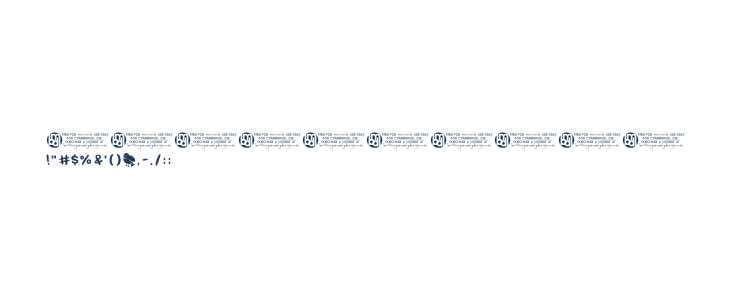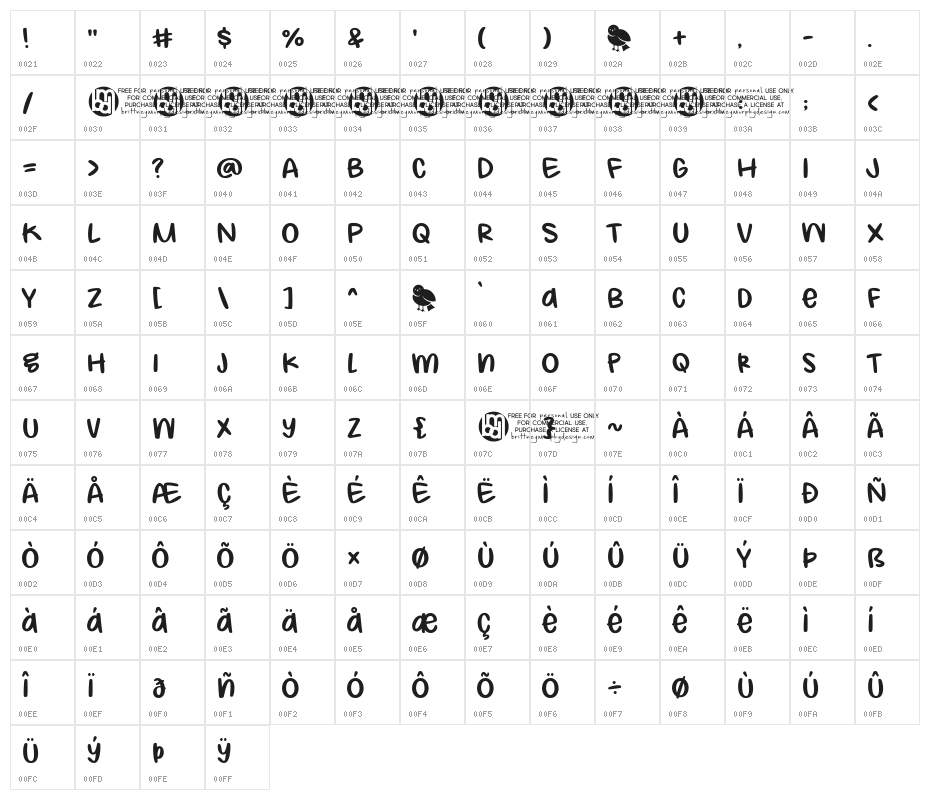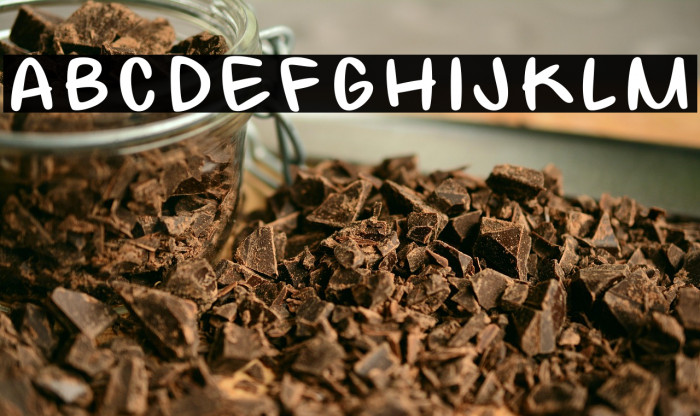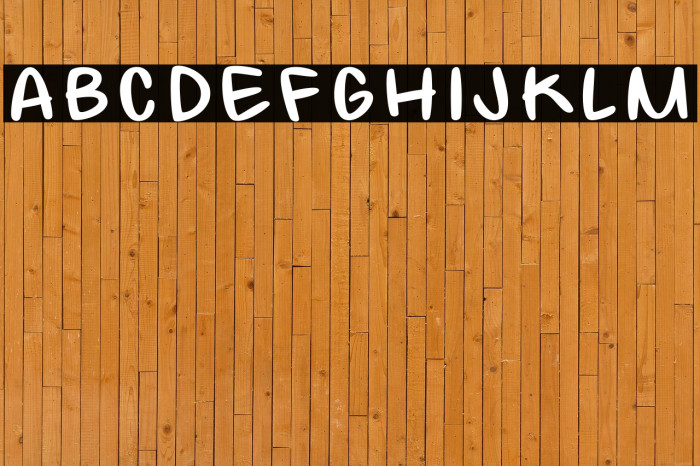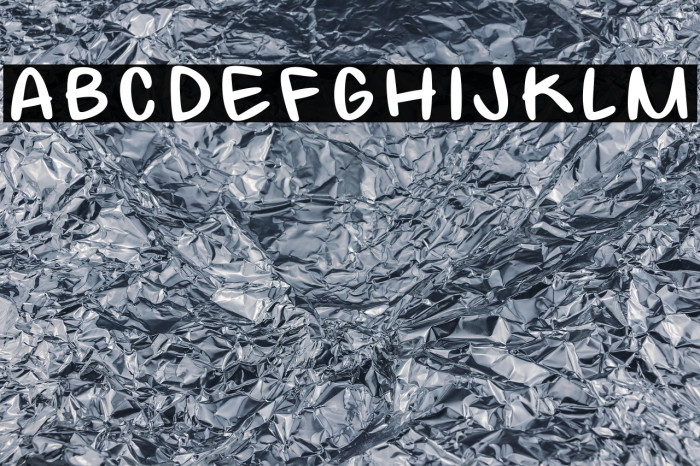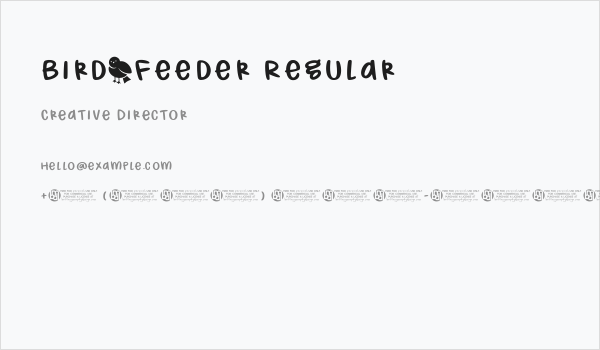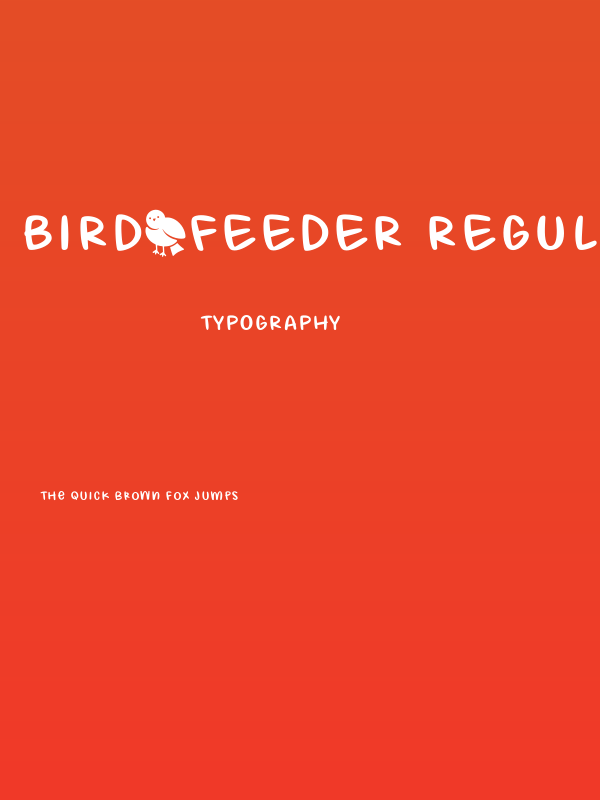
Bird_Feeder Regular Font
Bird_Feeder Regular Description
This playful and whimsical font features rounded, bold characters with a handwritten style. The letters have a casual, friendly appearance, making them ideal for projects that require a personal touch. The strokes are consistent in thickness, providing a uniform look across all characters. The font includes both uppercase and lowercase letters, numbers, and a variety of special characters, adding versatility to its use. The overall design is approachable and lively, suitable for creative and informal settings.
| Use Case | Logos, Headlines, Informal Text |
| Proposed Projects | Ideal for children's books, greeting cards, playful branding, and casual invitations. |